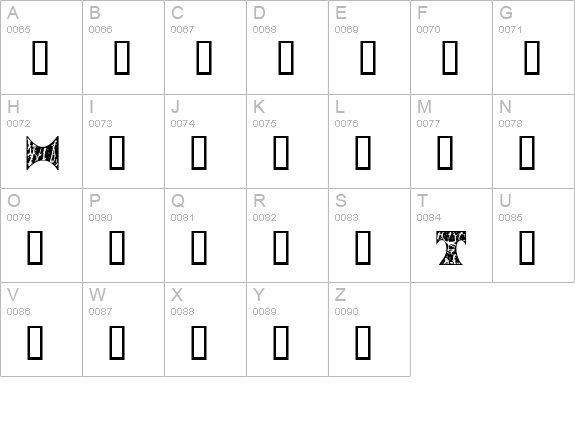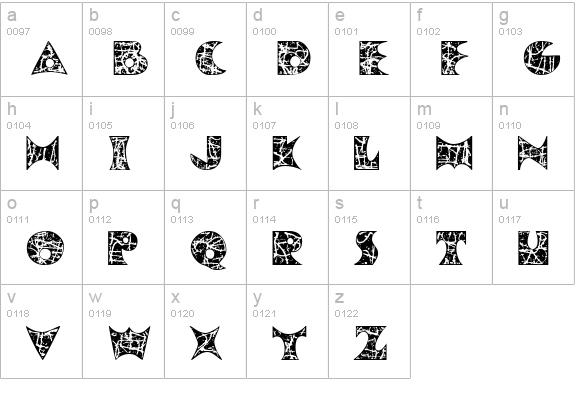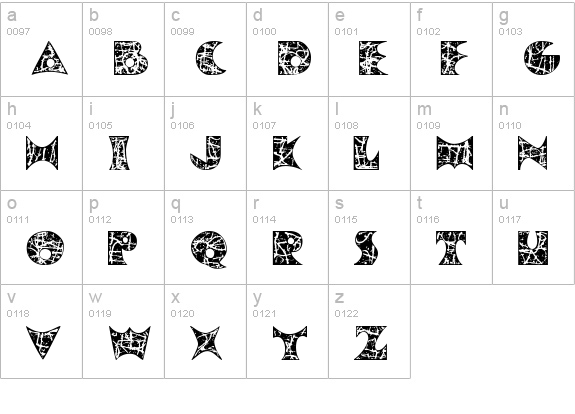
PollockMF Font Details
The PollockMF font is a stunning display typeface that exudes a sense of creative chaos and artistic flair. Inspired by the famous abstract expressionist painter Jackson Pollock, this font features bold strokes and intricate splatters that add a dynamic and energetic touch to any design project. With its unique and eye-catching appearance, PollockMF is sure to make a bold statement and capture the attention of viewers. Whether used for posters, headlines, or branding materials, this font adds a touch of artistic sophistication to any project. Best of all, PollockMF is available for free download at FontsMarket.com. So, designers and creatives can easily access this one-of-a-kind font to enhance their work and bring a touch of artistic flair to their designs. Don't miss out on the opportunity to add PollockMF to your font collection and unleash your creativity with this exciting typeface.